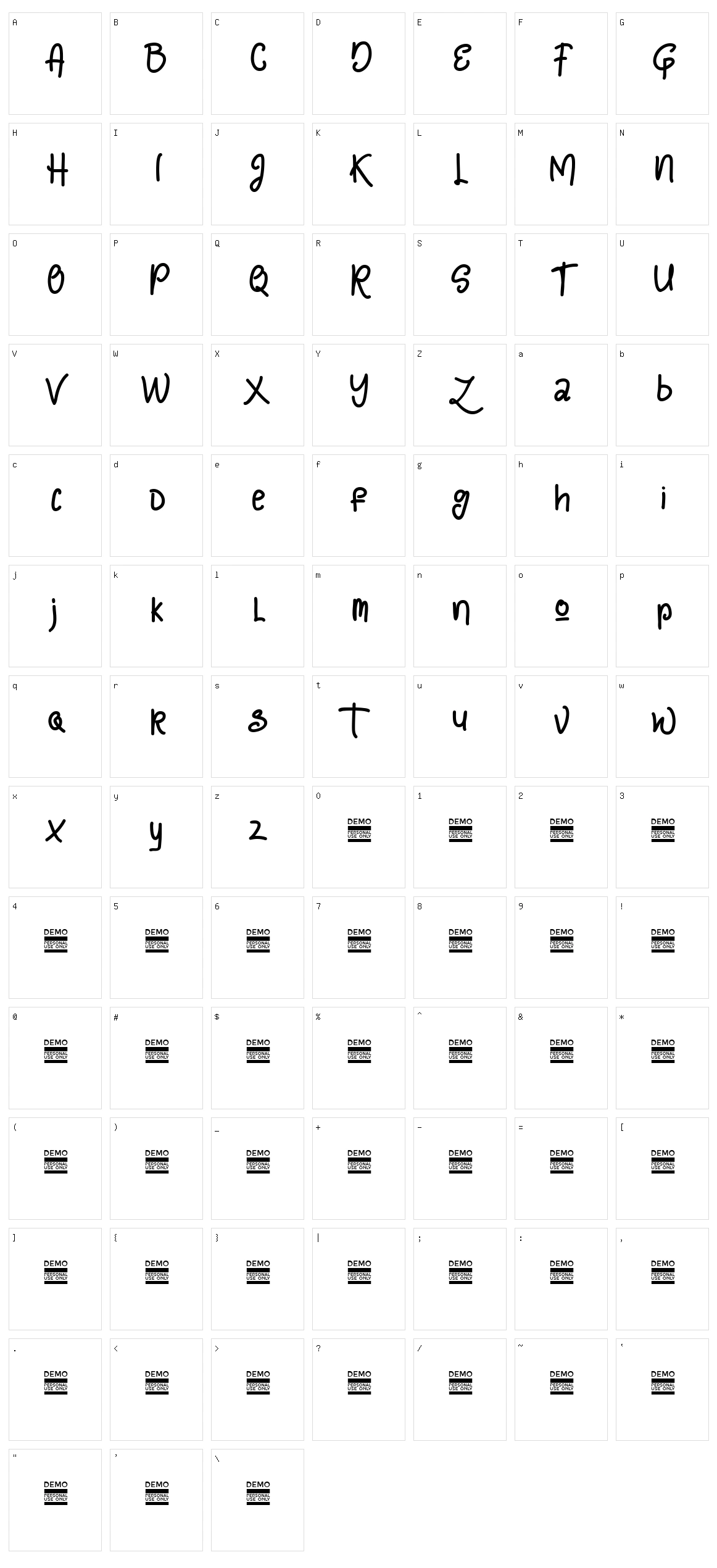
The free font Lazy Quotes is carefully designed by Typia Nesia, showcasing a thoughtful balance of creativity and usability and falls under the Script font style. When you download the ZIP file, it contains only 21.69 KB of font files, making it lightweight and quick to download. Please review the license details below to understand permitted usage and distribution rights. If license information is not available, we recommend using this font for personal projects only or contacting the author directly for commercial usage permissions.